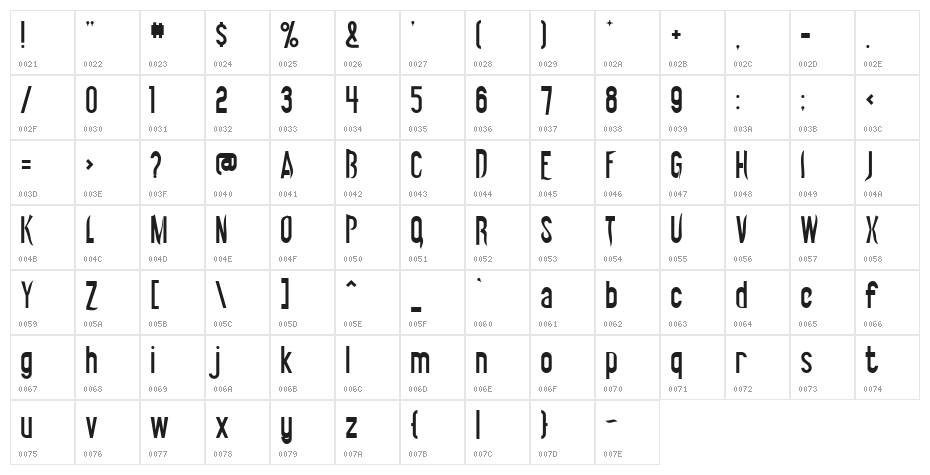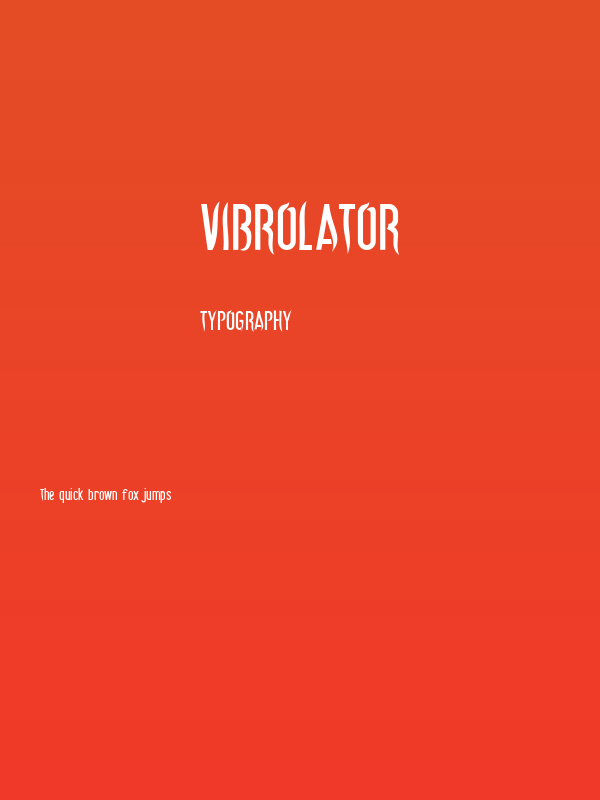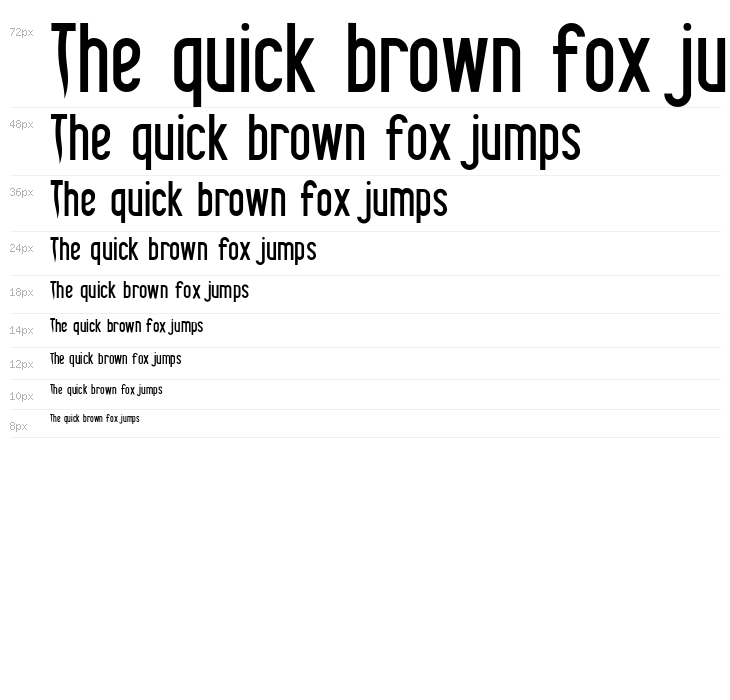
Vibrolator Font
Vibrolator Description
This font features a unique and dynamic design with a blend of sharp angles and smooth curves, creating a visually striking appearance. The uppercase letters exhibit a distinct flair, with some characters incorporating elongated strokes and unexpected twists. The lowercase letters maintain a more consistent and straightforward form, providing a balanced contrast to the uppercase. The numerals are bold and clear, ensuring readability. Special characters are designed with the same attention to detail, offering a cohesive look across all glyphs. This font's bold and artistic style makes it ideal for creative projects that require a touch of modernity and flair.
| Proposed Projects | Ideal for branding, posters, album covers, and any project that requires a bold and artistic touch. |